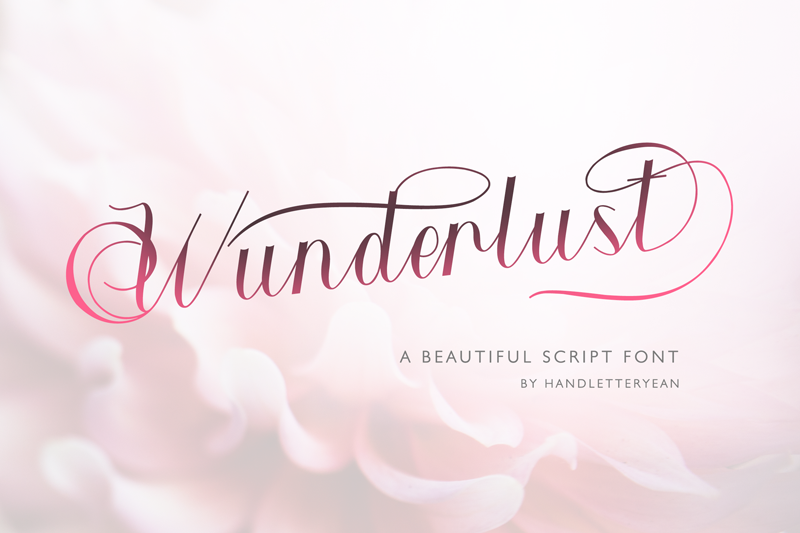
Font name: | Wunderlust |
Author: | HandletterYean |
Note by HandletterYean | |
Wunderlust is a stunning script font with a romantic feel. Fall in love with its bold swashes, and turn any design project into a standout. This font is Free for Personal Use. Any donation are very appreciated. Paypal account for donation: https://www.paypal.me/yeanaguste For full version download at: - https://www.creativefabrica.com/product/wunderlust/ref/235567/ - https://thehungryjpeg.com/product/3589965-wunderlust (promo) - https://fontbundles.net/handletteryean/274976-wunderlust What�s included in full version: 1. Wunderlust (OTF/TTF/WOFF) 2. Style include: Regular, Bold, Italic, Bold italic 3. Alternates, punctuation, symbols, titling, swash, SS01, SS02 4. Works both on Mac & PC 5. Simple installations 6. Accessible in the Adobe Illustrator, Adobe Photoshop, Adobe InDesign, CorelDraw, even work on Microsoft Word. 7. Support multilingual; � � � � � � � � � Visit & follow our store for more great fonts: https://www.creativefabrica.com/designer/yean-aguste/ref/235567/ Instagram: @yeanaguste & @handletteryean Please let us know if you have any question! Thank you! :) |